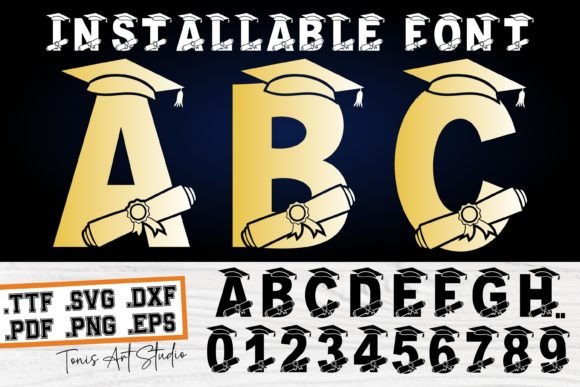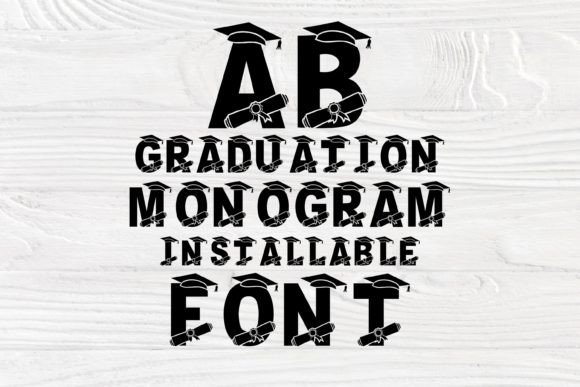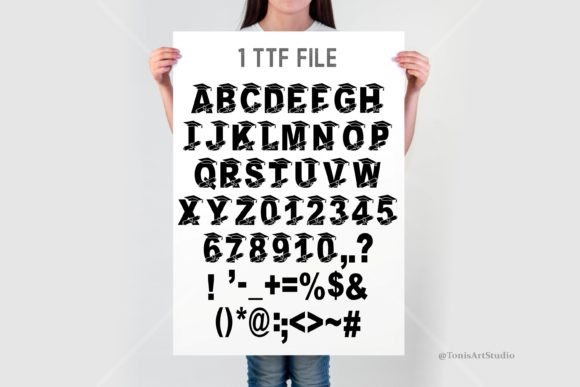
Graduation Monogram Font
About the Graduation Monogram Font
Let us introduce you to Graduation Monogram Font, where timeless design meets modern craftsmanship. Celebrate the achievements of your loved ones with our exclusive Graduate Font, perfect for all your creative projects. This font includes TTF files tailored for graduation monograms, proud family memorabilia, and various celebratory crafts. With a full monogram alphabet featuring school letters and numbers, plus a stylish graduation cap SVG, you have everything you need to create unique designs.
This font’s elegant and celebratory style is ideal for projects requiring a touch of sophisticated flair. It works exceptionally well in headlines, short invitations, certificates, or logos for educational institutions or celebratory events. Avoid using it for large blocks of body text or user interface elements where readability is paramount; its decorative nature compromises legibility at smaller sizes.
Pair Graduation Monogram Font with a clean sans-serif like Open Sans for a balanced contrast, or a classic serif like Garamond for a more traditional feel. For a more playful effect, a handwritten script font could be considered, but ensure legibility remains a priority.
The overall personality is sophisticated yet celebratory, lending itself to brands associated with achievement, education, and formal events. Its refined style makes it unsuitable for projects needing a casual or playful vibe.
Graduation Monogram Font Usage Examples
Graduation Monogram Font Example